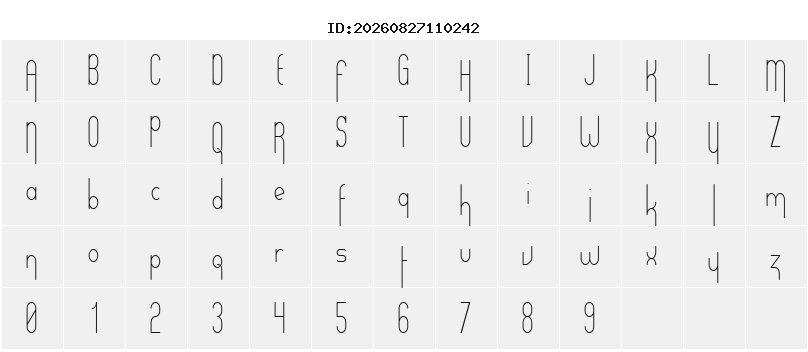
283-CAI978 Preview
• Font Name: 283-CAI978
• Font ID: 283-CAI978:Version 1.00
• Full Font Name: 283-CAI978
• Version: Version 1.00 November 27, 1998, initial release
• PostScript Name: 283-CAI978
About 283-CAI978.ttf
283-CAI978.ttf is a modern, elegant sans-serif font designed for ultimate readability and visual harmony. Perfect for branding, headlines, web design, and print materials.